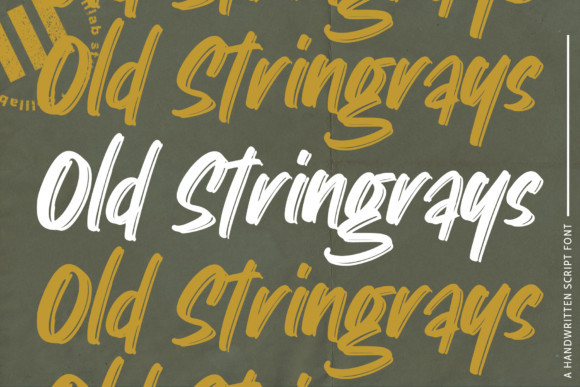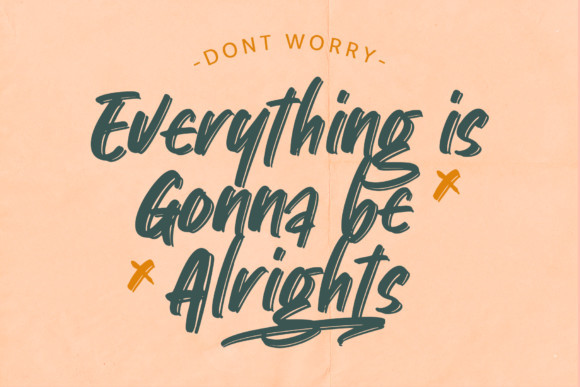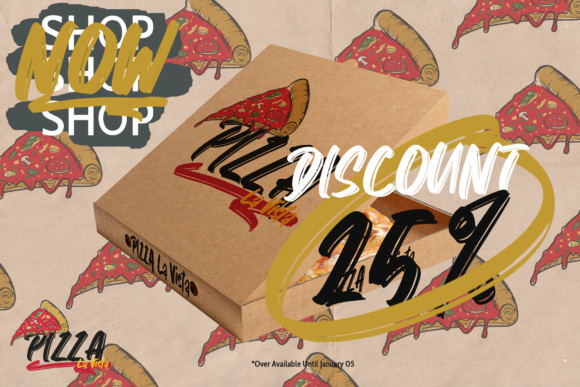
Old Stringrays Font
Old Stringrays is a lovely and flowing handwritten font, created with the help of a brush pen. Fall in love with its incredibly versatile style and use it to create gorgeous wedding invitations, beautiful stationary art, eye-catching social media posts, and much more!